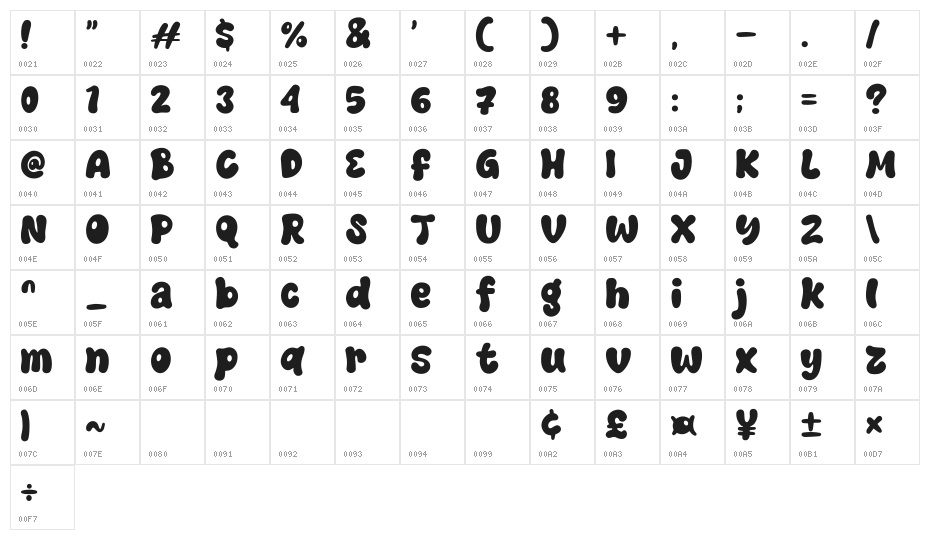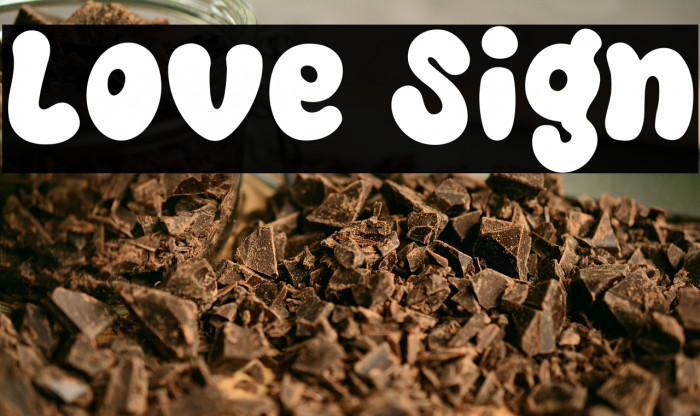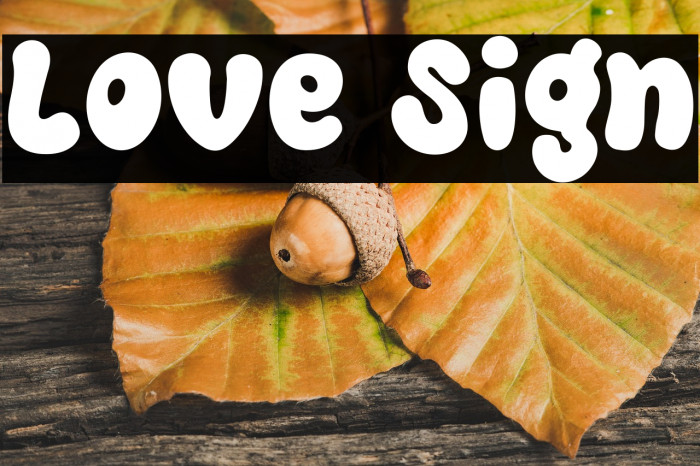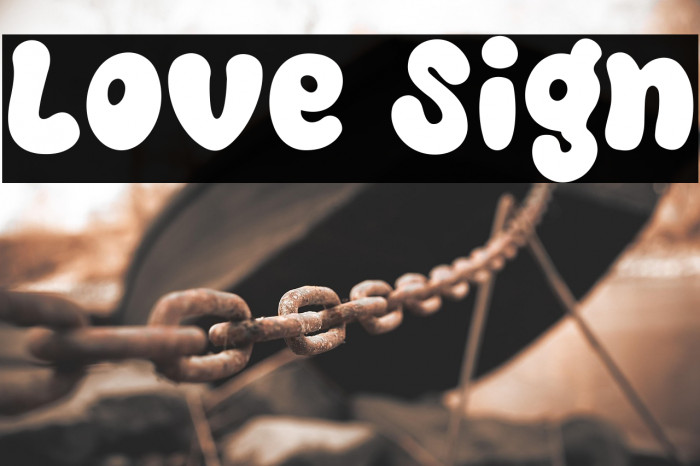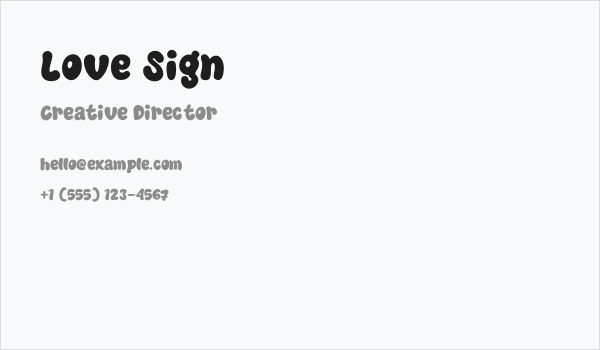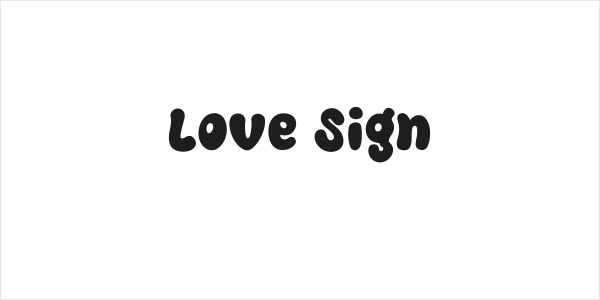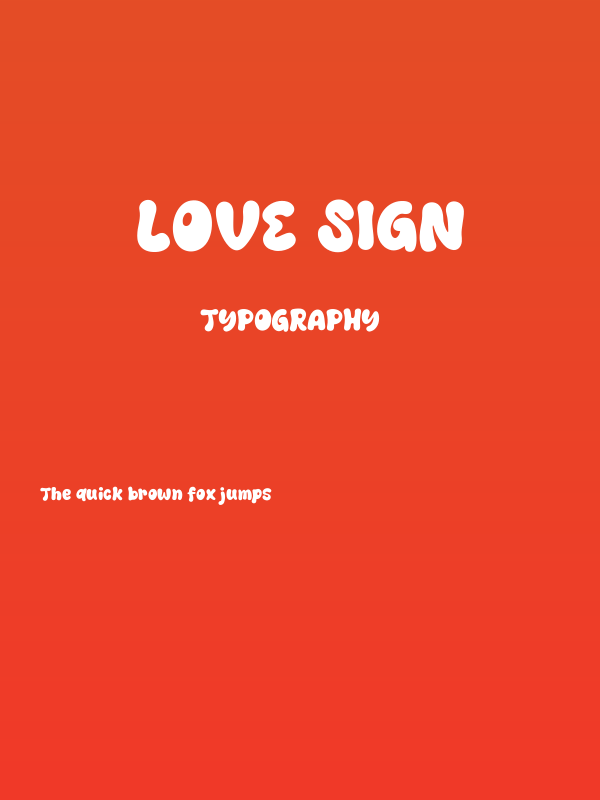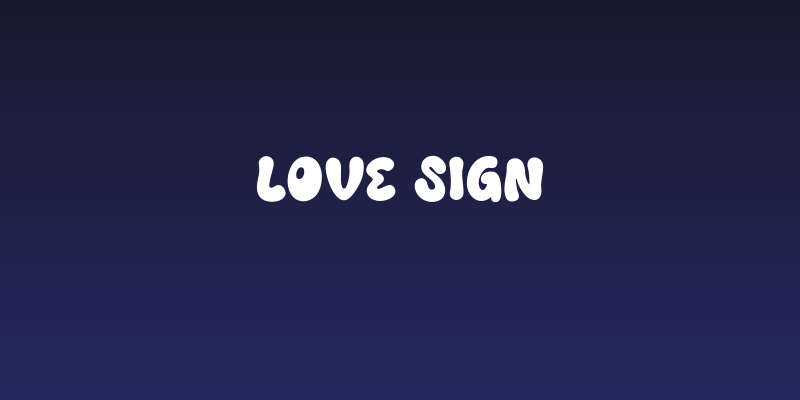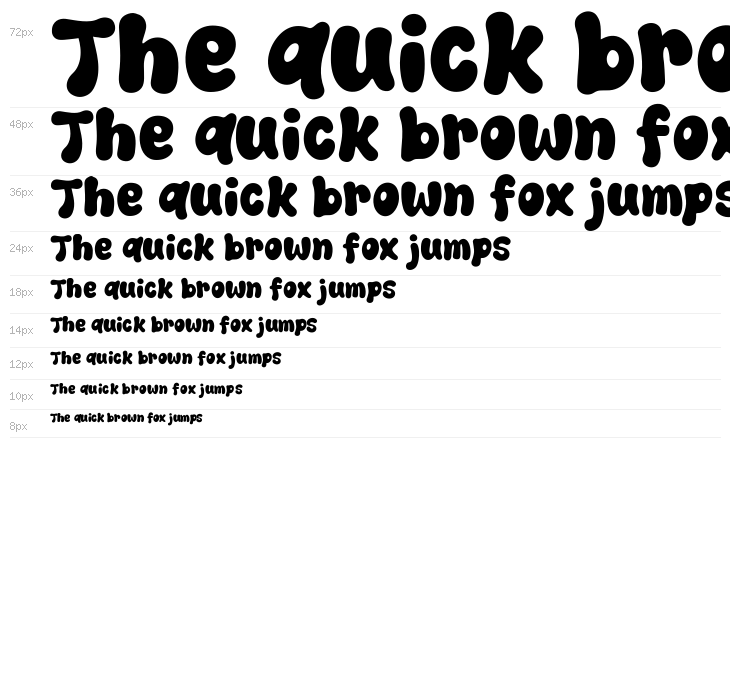
Love Sign Font
This playful and bold font features thick, rounded characters with a bubbly appearance. The letters are uniformly heavy, giving them a strong presence on the page. The strokes are consistent in width, contributing to a cohesive and harmonious look. The font exudes a sense of fun and whimsy, making it ideal for projects that aim to convey a lighthearted and cheerful tone. Its unique style is characterized by the exaggerated curves and smooth edges, which add to its friendly and approachable feel. The font is versatile enough to be used in various creative applications, from children's books to playful branding materials.
| Overall Style | Playful, Whimsical |
| Proposed Projects | Ideal for children's books, playful branding, party invitations, and creative posters. |